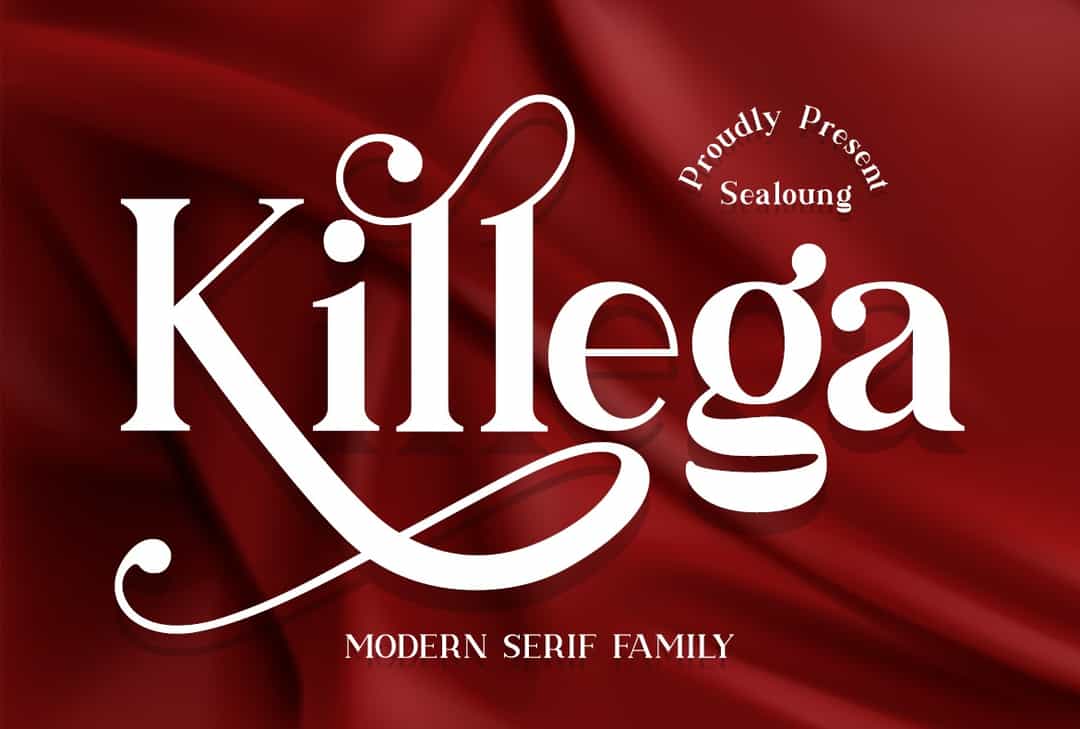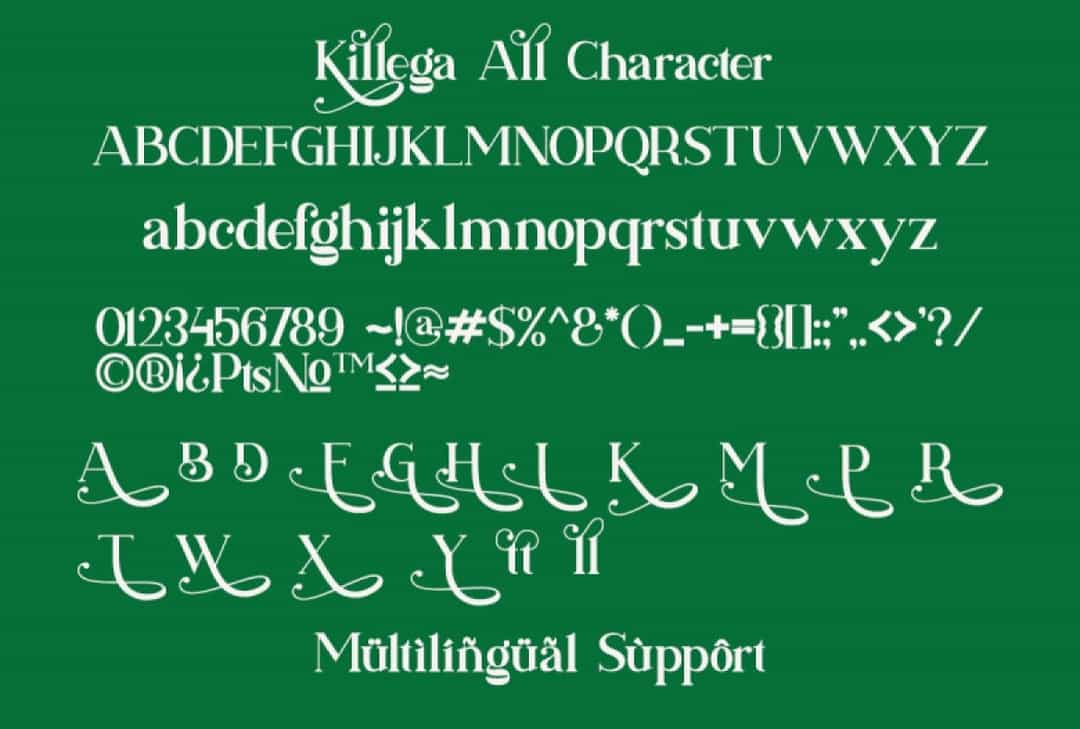
Discover Killega Modern Serif Typeface, part of the Serif Basic collection—a versatile and unique font perfect for adding a personal touch to your projects. Download it for free and enjoy crafting designs with style, from invitations to social media posts. This font is available exclusively for personal use, giving you the freedom to create without limits. Unlock your creativity with Killega Modern Serif Typeface today!
Killega Font is an elegant and modern display serif font suitable for the headlines and for the most formal settings. Stylish and elegant, they are developed to assist you in creating your brilliant ideas! The font will help advance them even more!